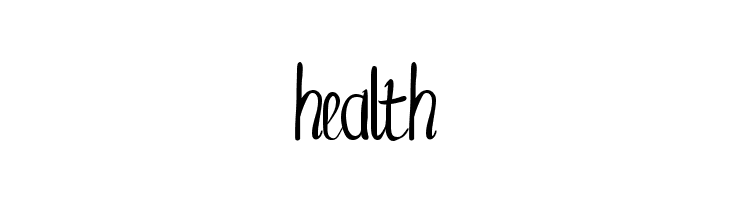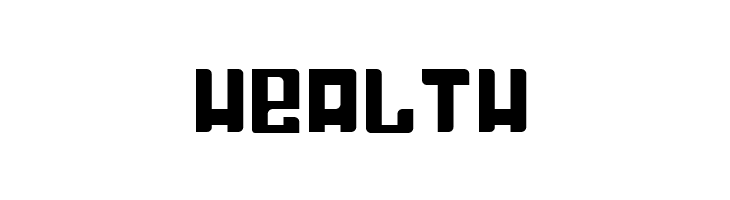
A whimsical script font with playful curls and elegant swirls.
A bold, geometric font with strong, angular lines and a modern aesthetic.
A bold, playful font with rounded strokes and a whimsical style.
A playful, handwritten font with smooth, rounded edges and a casual style.
A playful and energetic script font with fluid, connected letterforms.
A whimsical, elegant script font with playful loops and intricate curls.
A playful, handwritten font with fluid strokes and a casual style.
A casual, handwritten font with a modern, flowing style.
A lively and elegant script font with a modern twist.